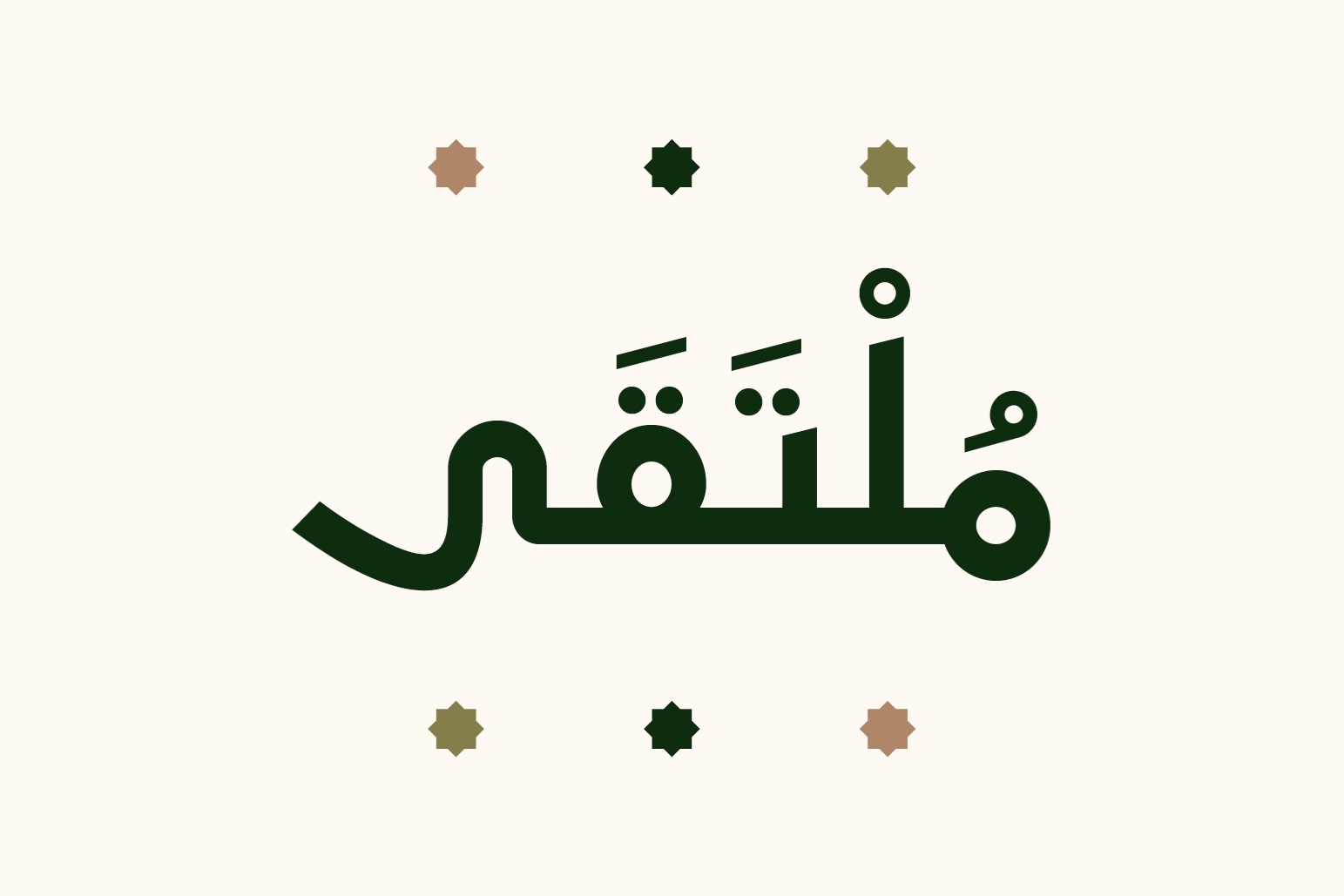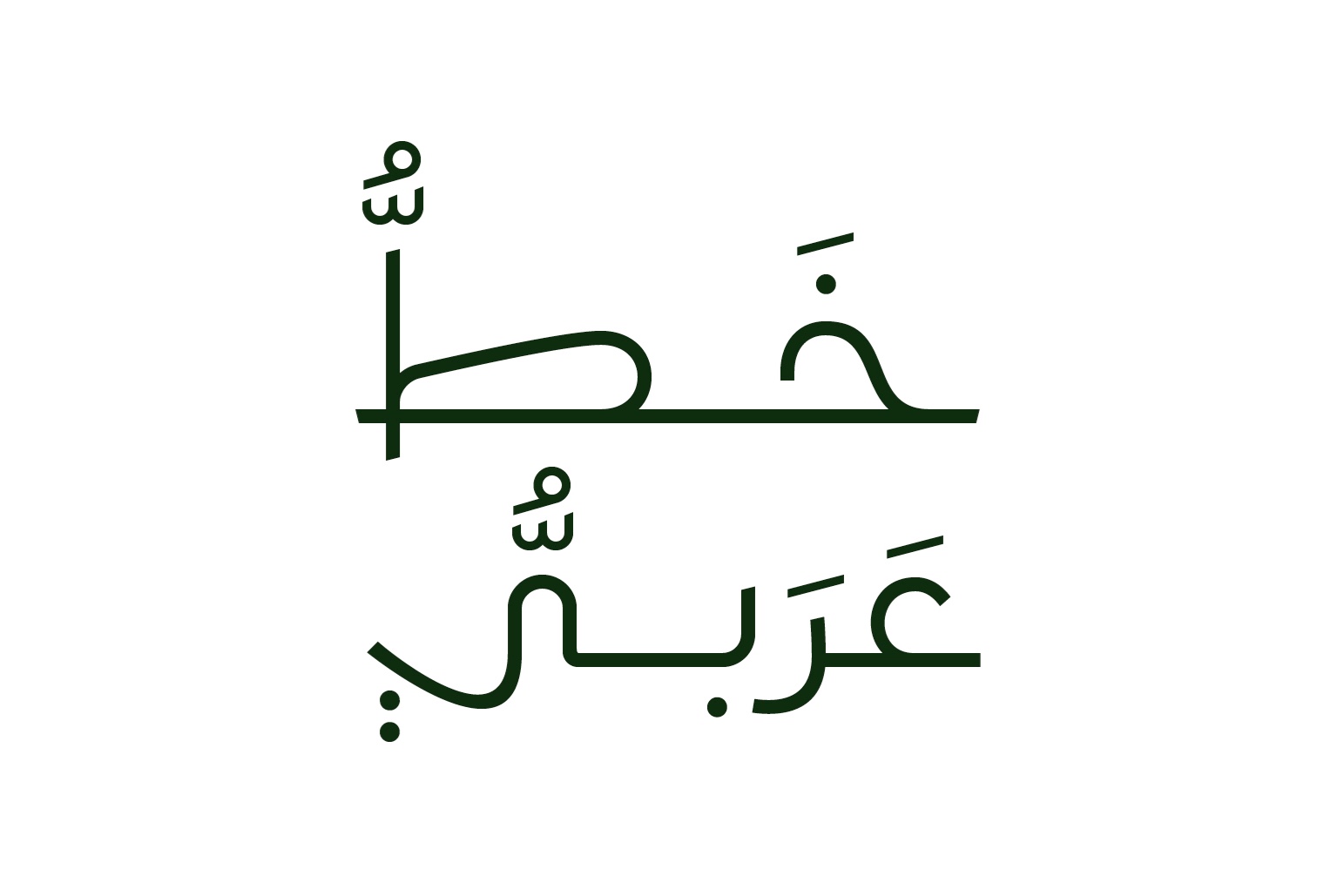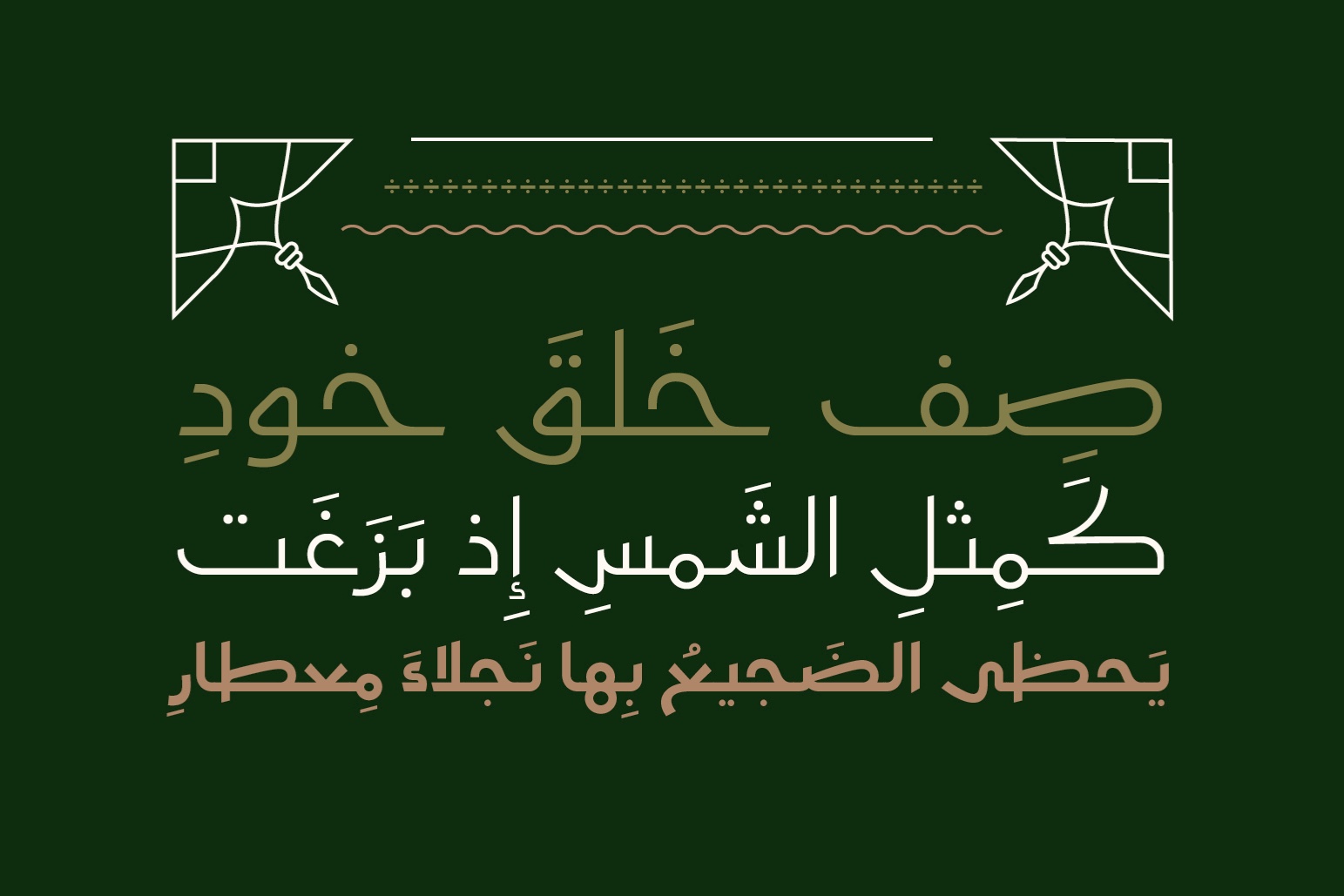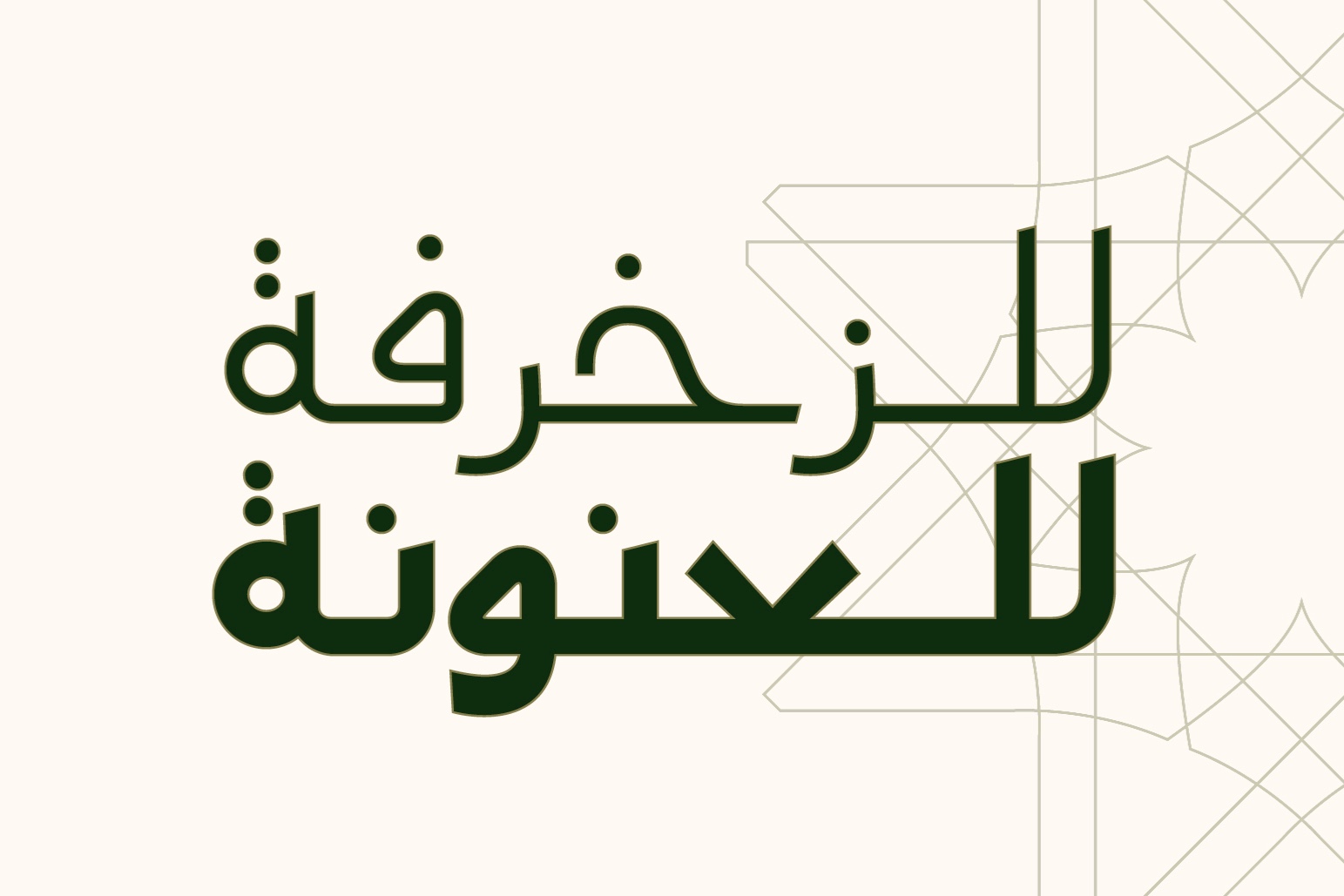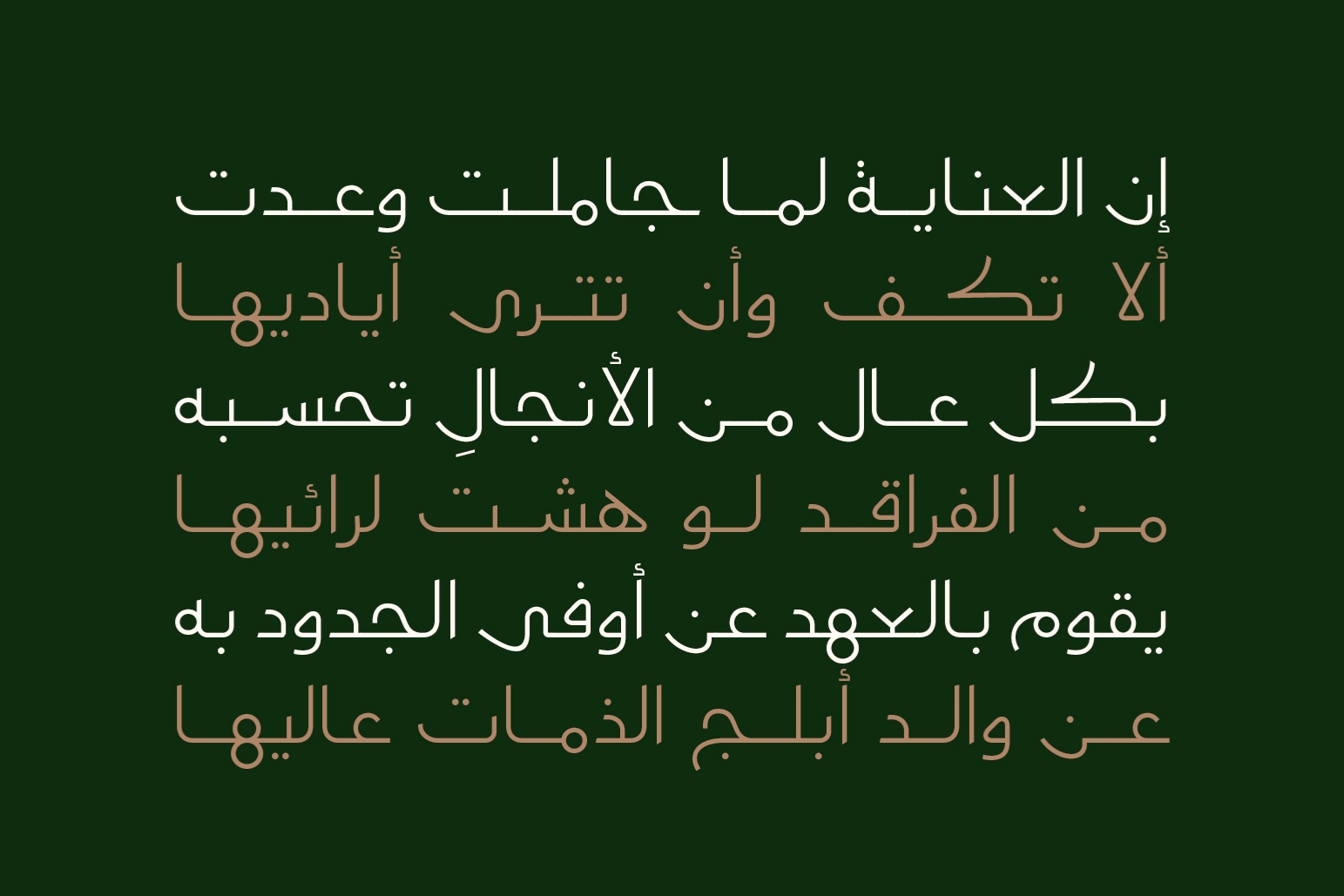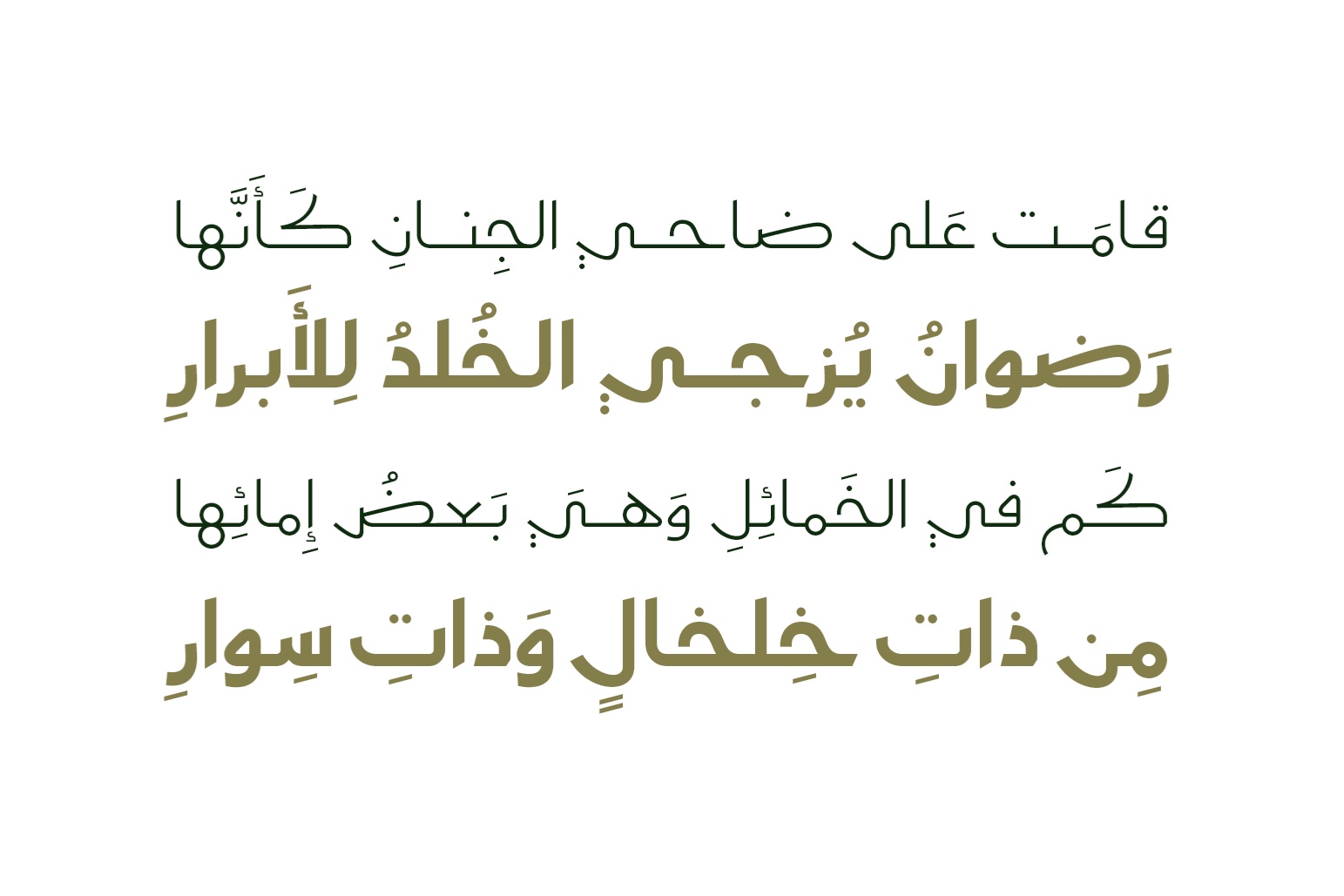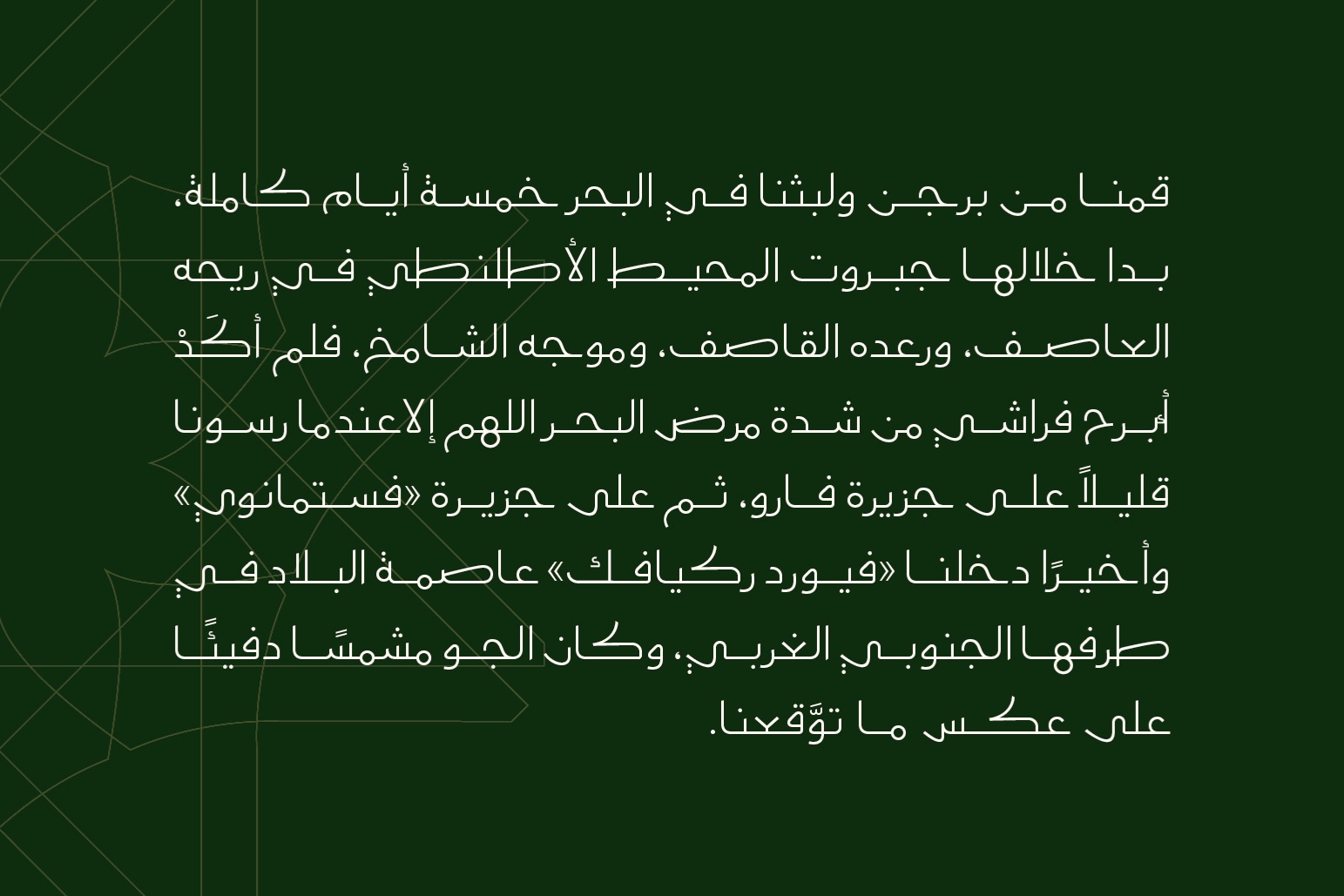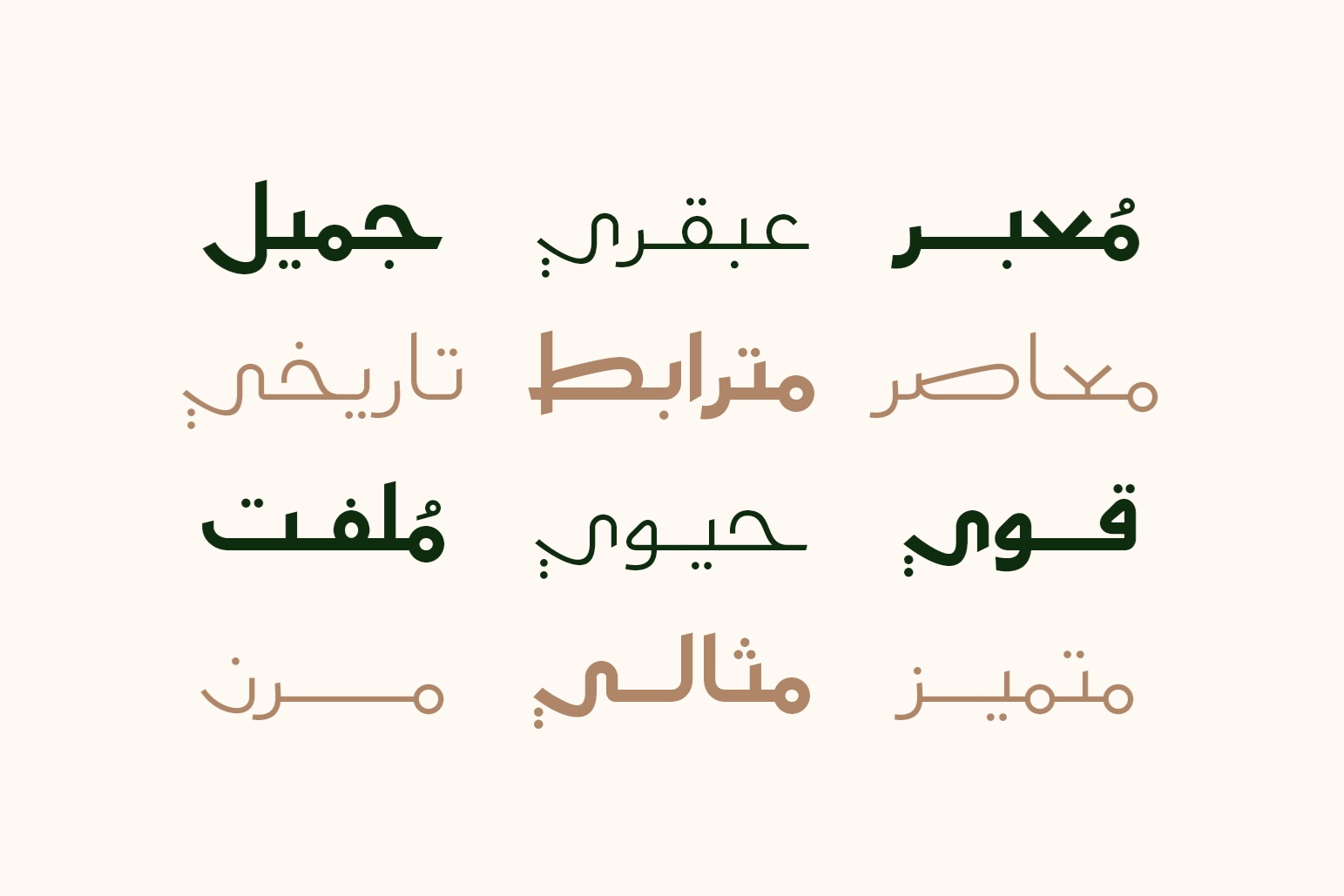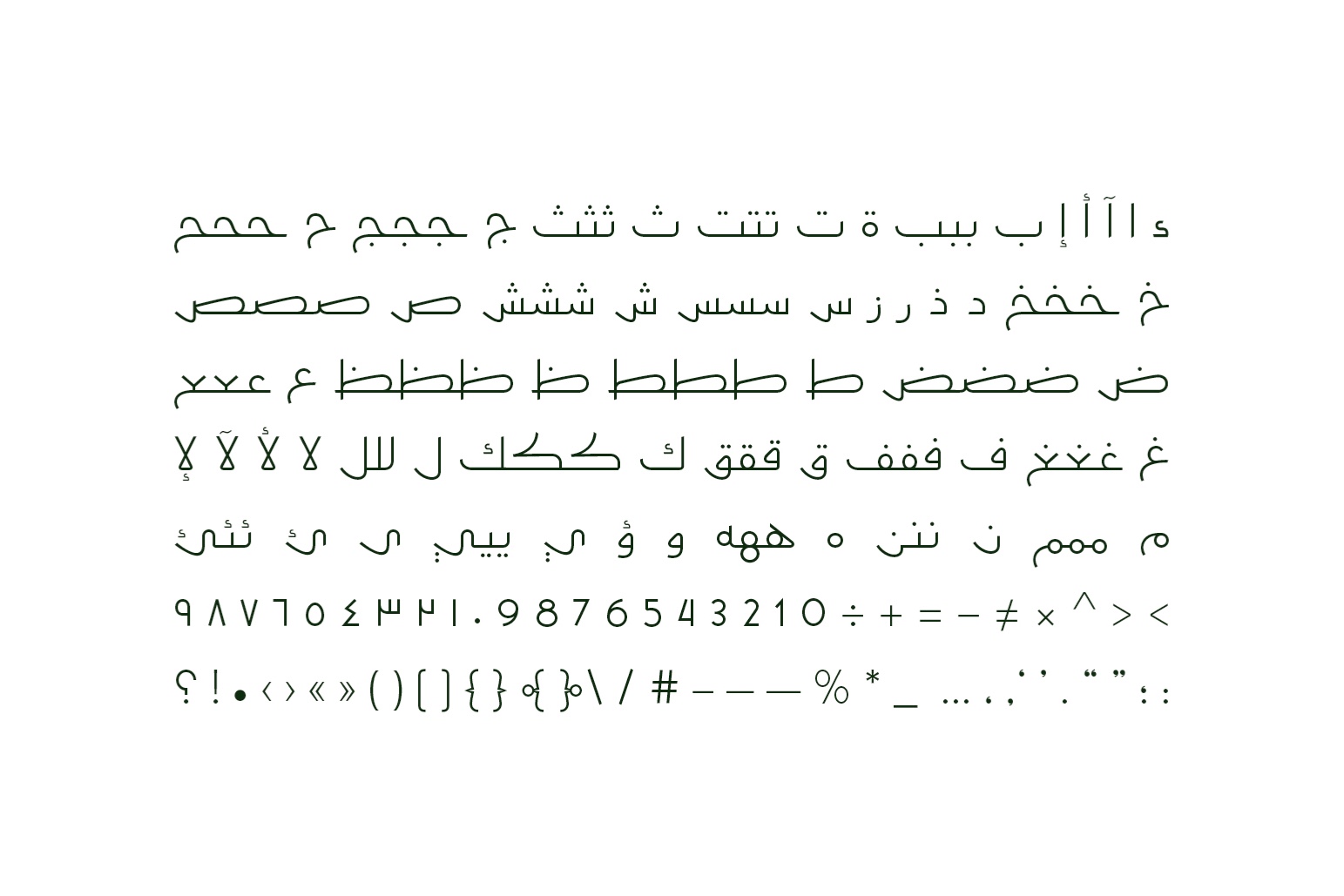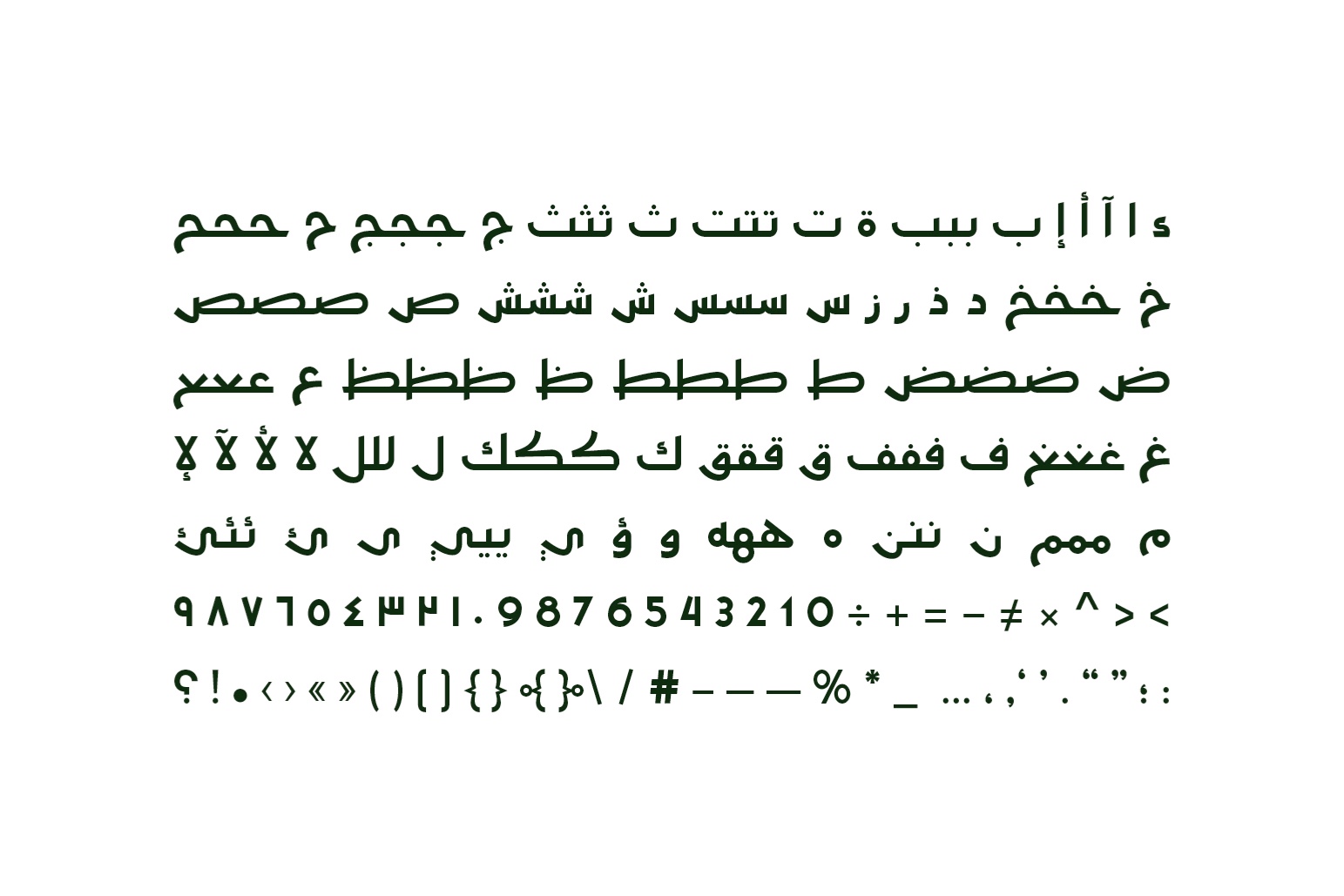
Moltaqa (the Arabic word for “Rendezvous”) is an Arabic display font inspired by early styles of Arabic handwriting from the 7th century AD. The typeface is available in two weights; Regular and Bold, and is well-suited for print, web, and mobile applications.
320+ Characters
Regular and bold